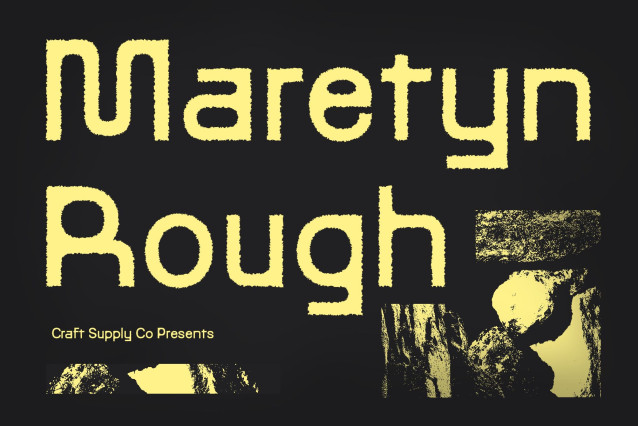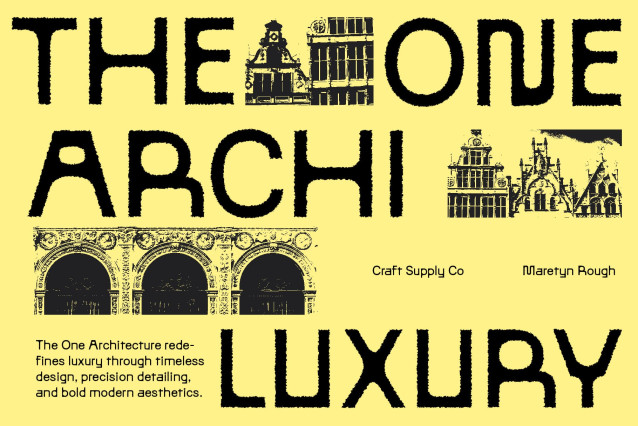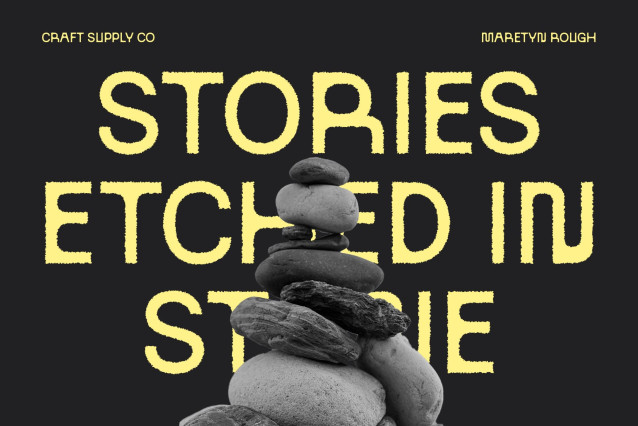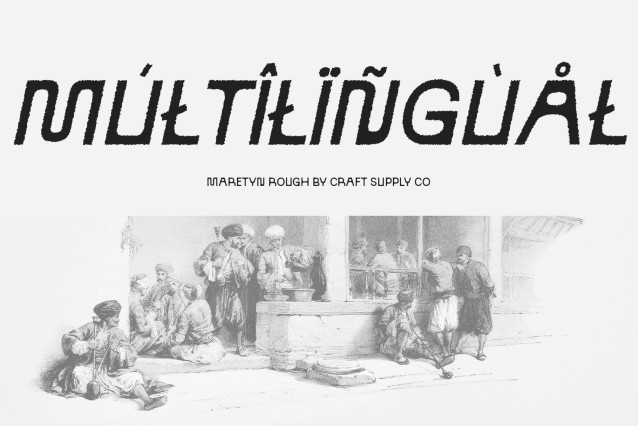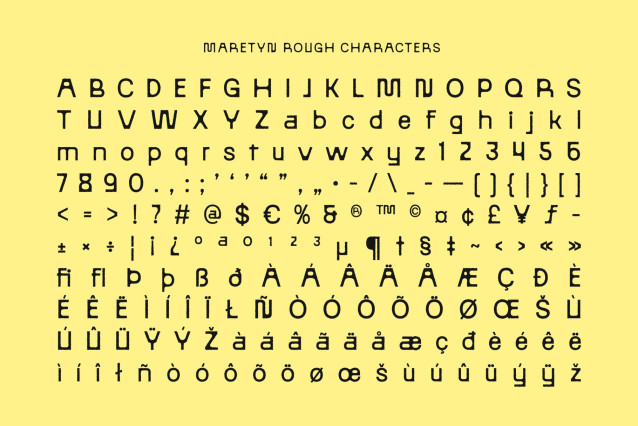
Maretyn Rough Font
Maretyn Rough Font is a modern sans-serif font that artfully merges grotesque and geometric design principles. With balanced proportions, clean construction, and a structured aesthetic, it delivers a solid and contemporary appearance ideal for design projects that demand both functionality and style.